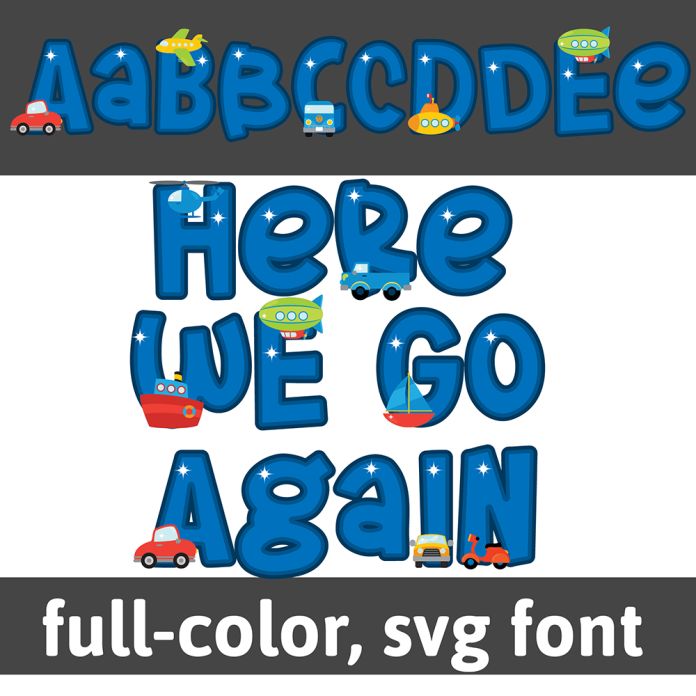
This full-color font features all means of travel on the uppercase and the lowercase is without. There is an alt case w/ additional colors you can access through your system or Silhouette's glyph map. This font works best for titles, displays, posters and more. Please note color fonts will show as black in non compatible programs. This font type is compatible with Silhouette Studio.